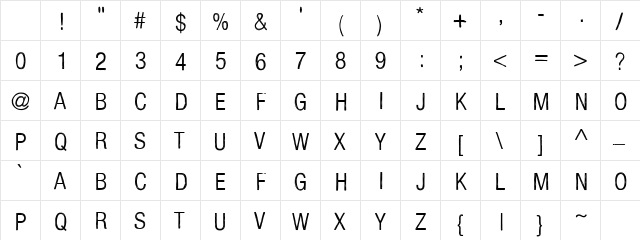
Kelpotico is a composed and adaptable typeface that performs quietly and consistently across a wide range of design contexts. Its slender proportions lend an understated elegance to any composition.